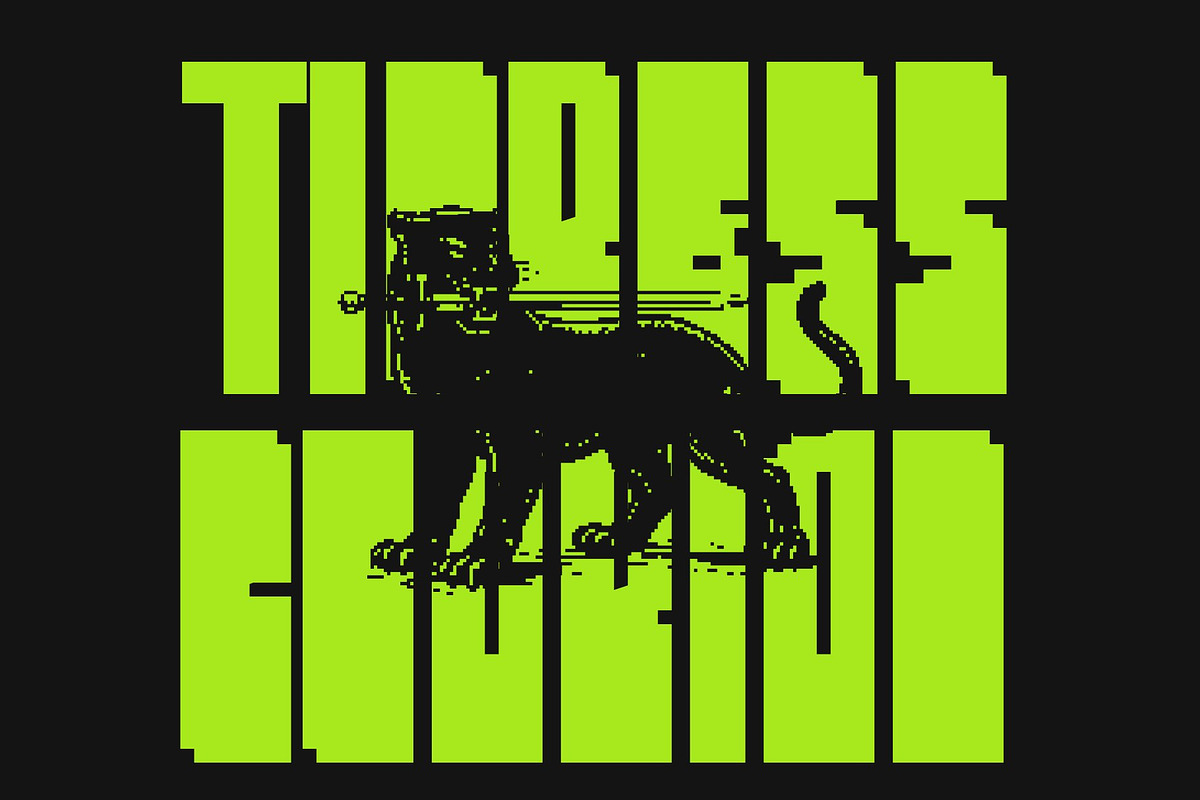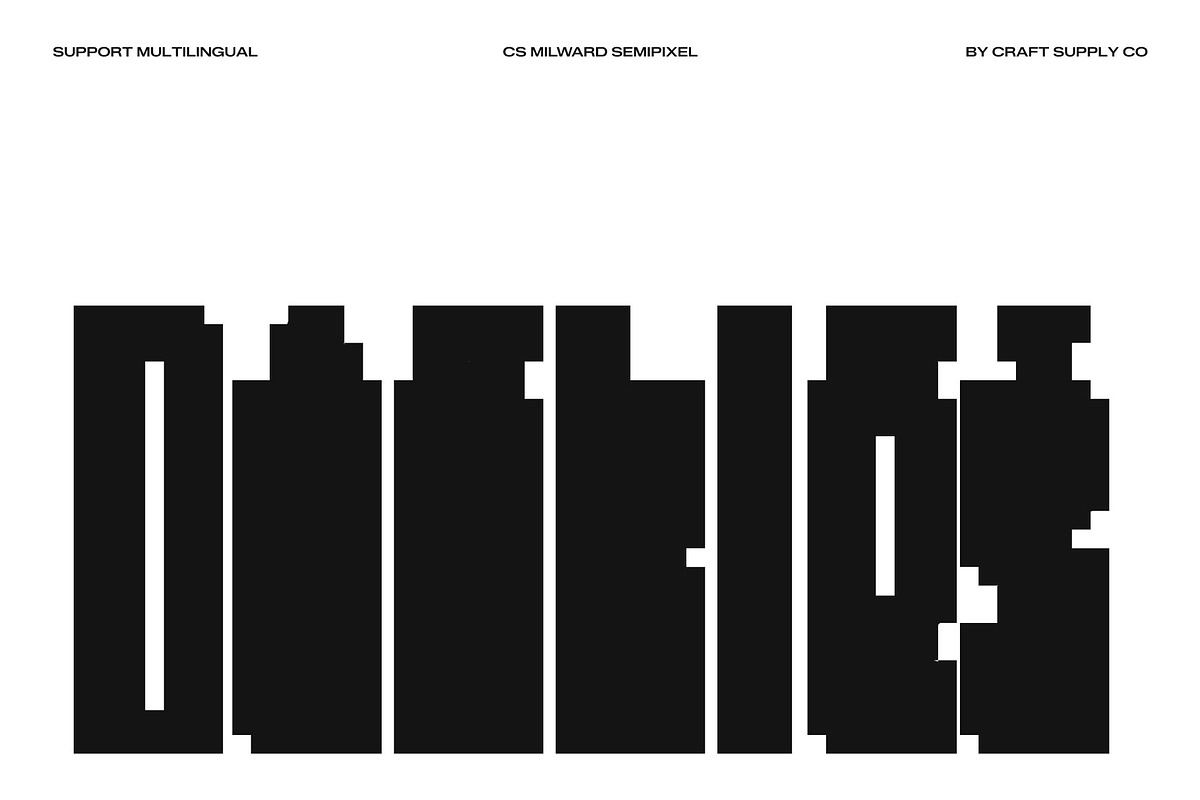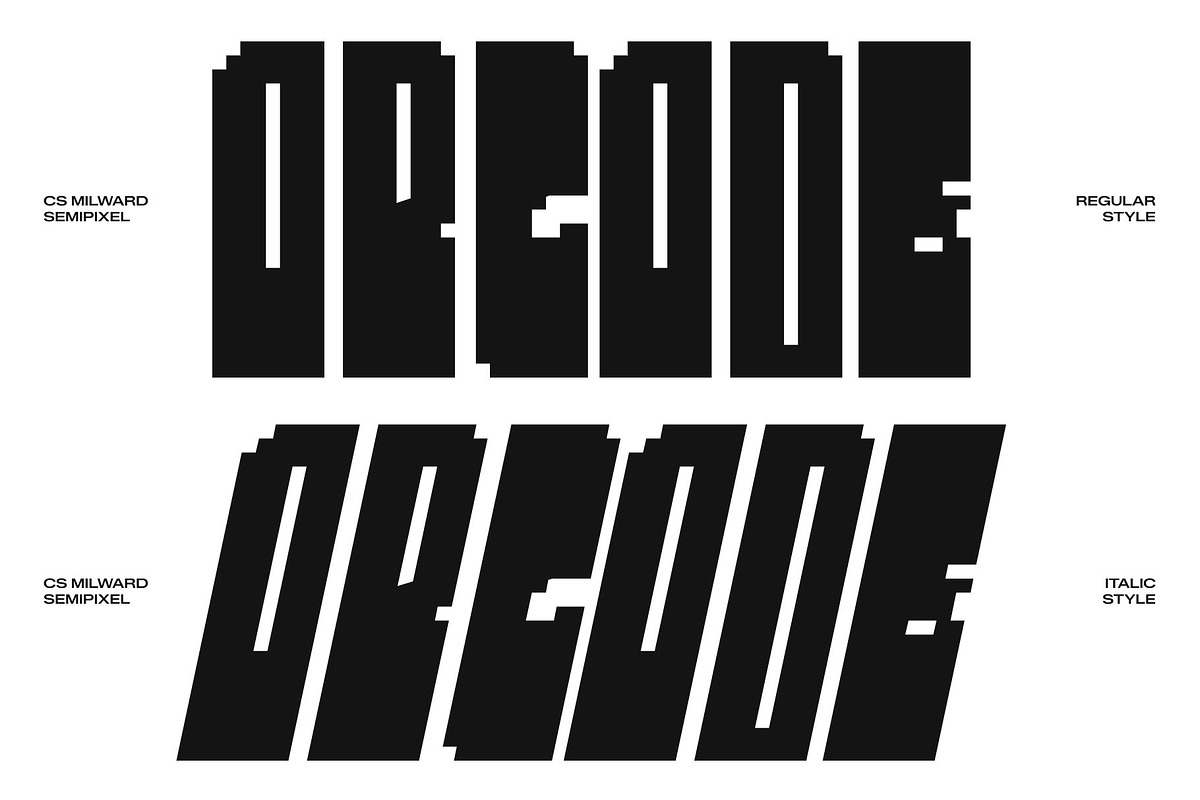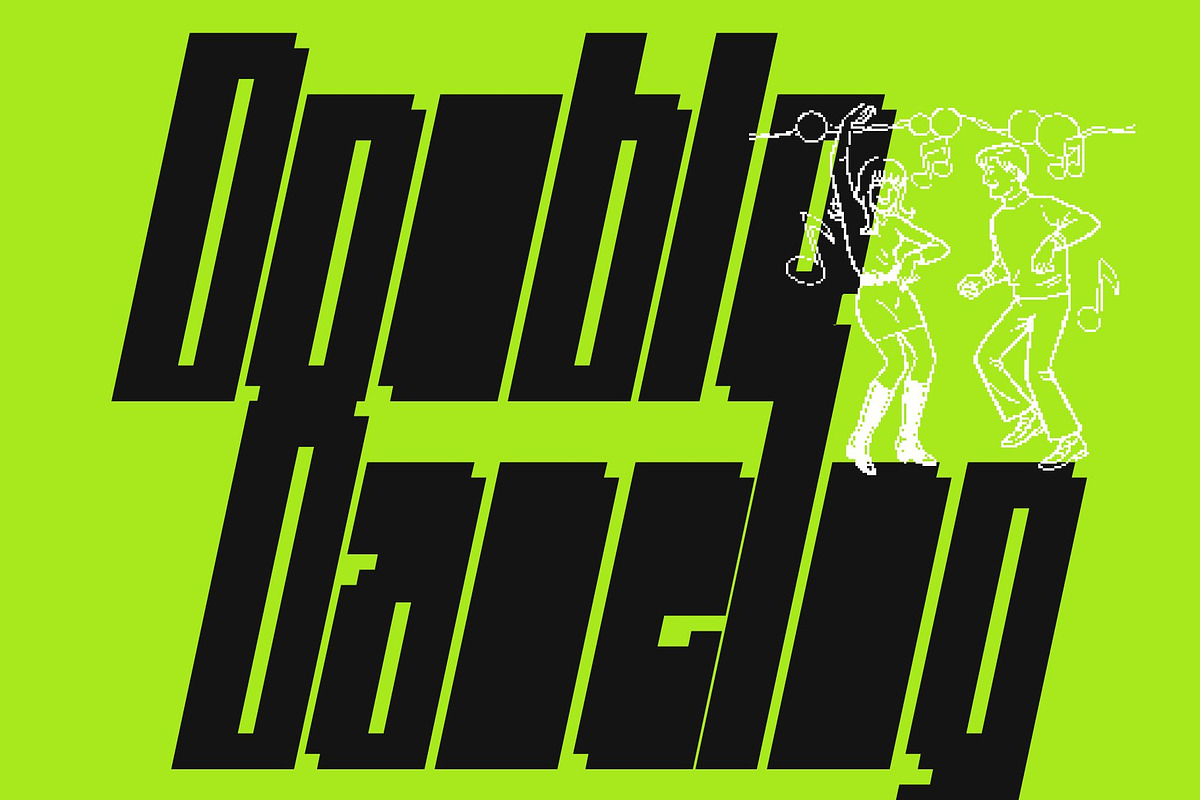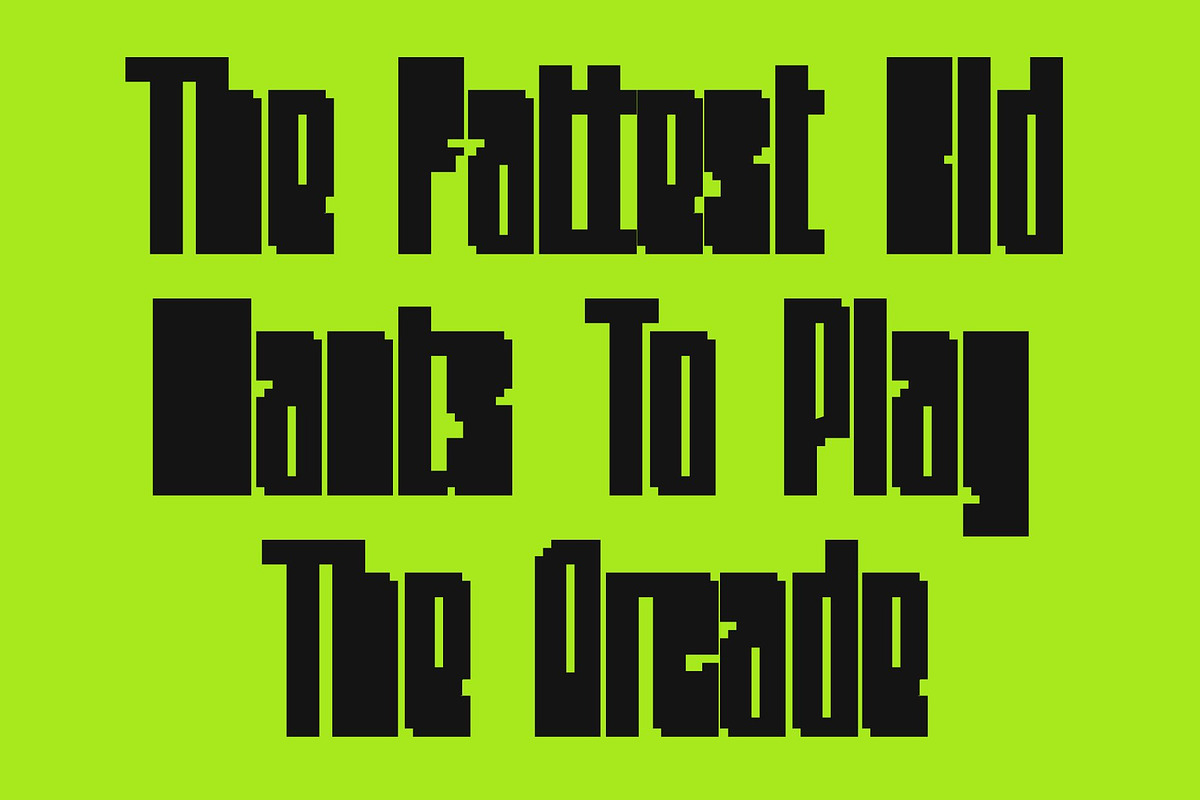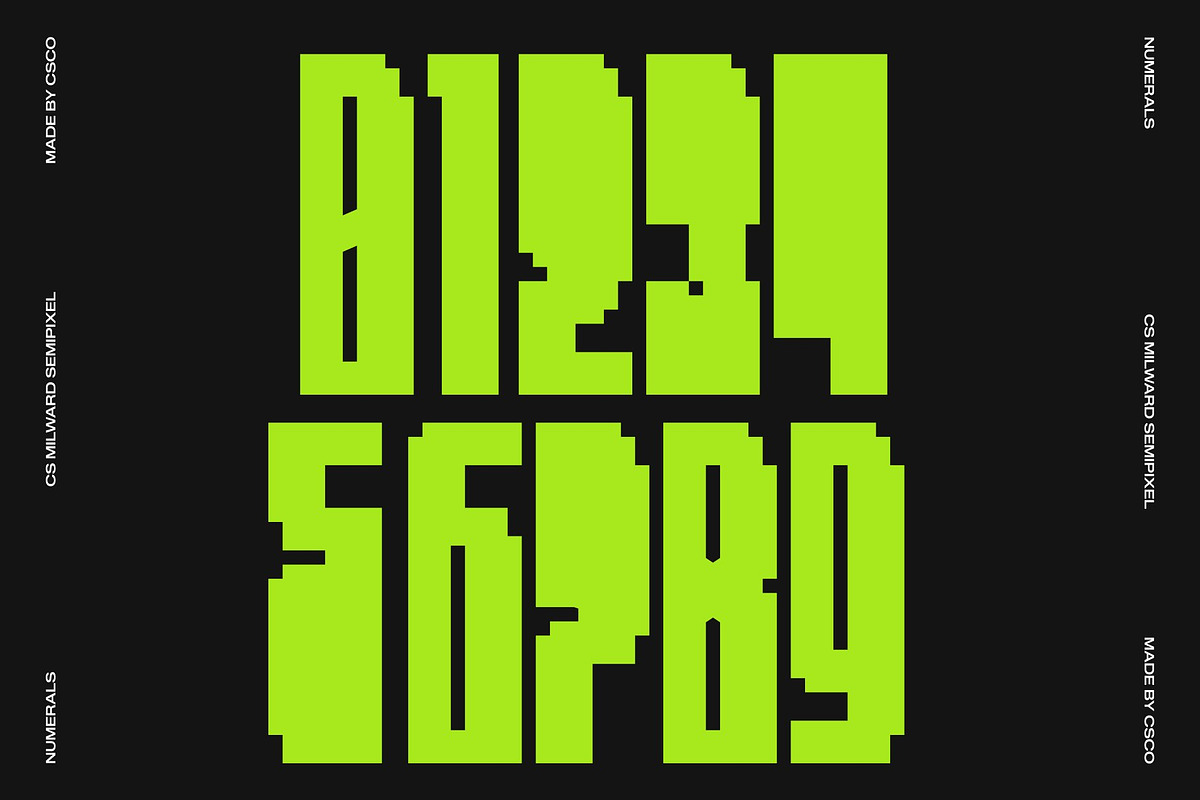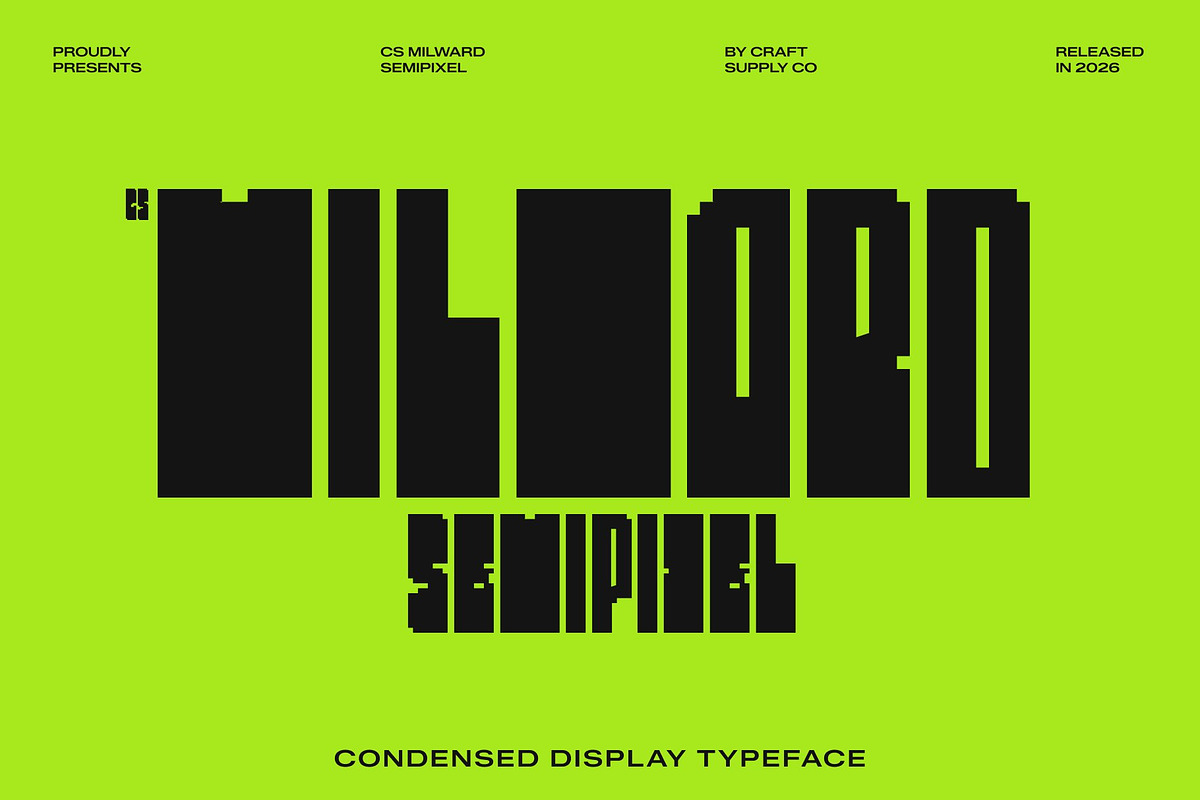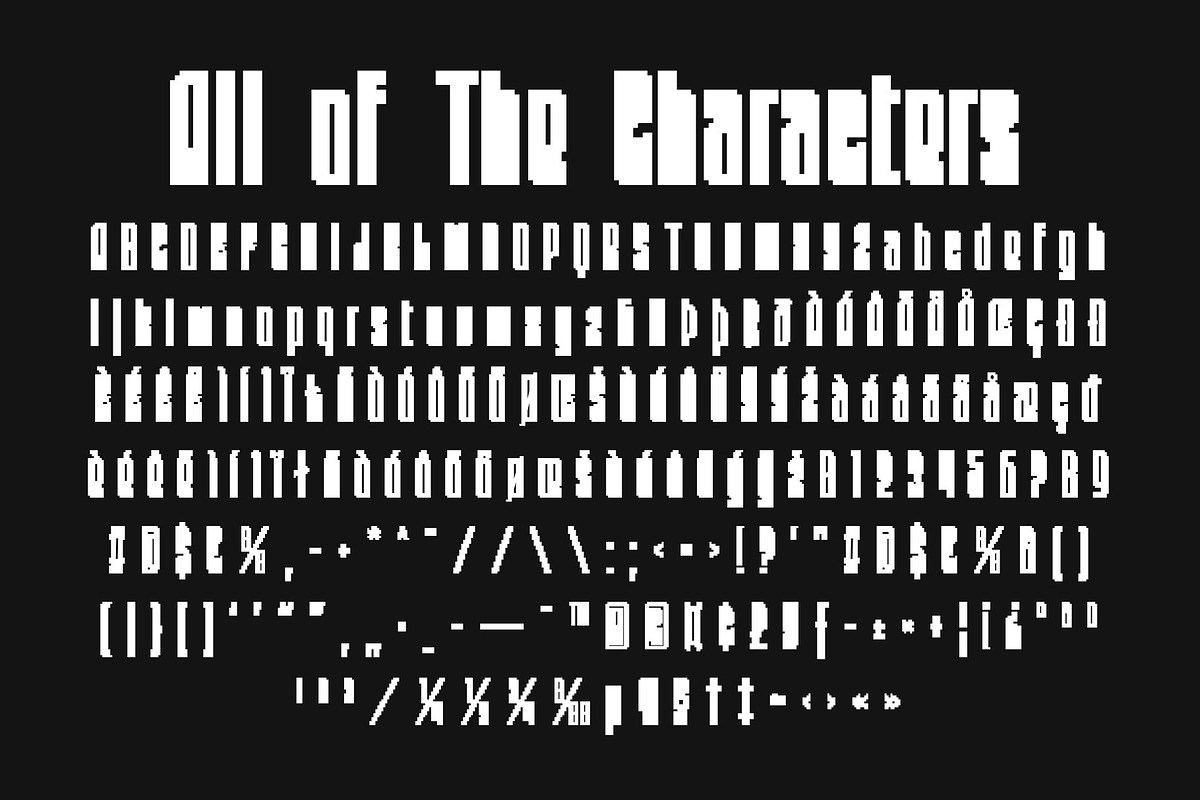
CS Milward Semipixel
CS Milward Semipixel – Bold Condensed Sans Serif Font: Where Brutal Digital Energy Meets Smooth Futurism
Tall Brutal Forms with Strong Digital Presence This is a bold condensed sans serif font built with a distinct brutal digital aesthetic. Its slender yet heavy proportions create a commanding visual structure filled with intensity, precision, and futuristic energy. The tall letterforms maximize impact in compact spaces, making every headline feel powerful, modern, and visually aggressive.
Semipixel Construction with Smooth Pixel Refinement Combining pixel-inspired square forms with modern curves and refined details, this font delivers a smoother appearance than traditional rigid pixel fonts. The semipixel styling softens the harsh geometry while preserving its digital identity, resulting in a balanced fusion of brutalist structure and sleek futuristic refinement.
Industrial Futurism with Urban Techwear Style Blending condensed modern typography with brutal-digital aesthetics, this font creates a typographic identity that feels industrial, cybernetic, and visually immersive. Its thick geometric forms and smooth pixel-inspired styling evoke underground technology culture, futuristic fashion, and experimental digital environments.
Perfect for Techwear, Posters, and Cover Art This is perfect for streetwear branding, apparel graphics, cover art, event posters, futuristic editorials, streaming visuals, and experimental visual campaigns. Its tall semipixel forms make it ideal for logos, merchandise, packaging, signage, and modern visual identities that seek a bold and futuristic digital appearance.